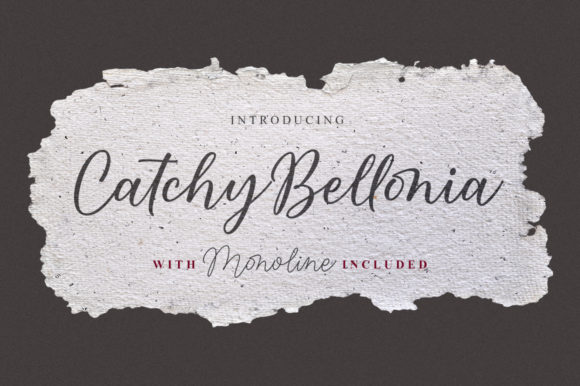
Catchy Bellonia Font: Elevate Your Designs with a Relaxed and Cursive Script Font
In the world of typography, fonts play a crucial role in conveying the tone and personality of a design. When it comes to creating visually appealing projects, selecting the right font is essential. If you’re looking for a font that exudes relaxation and elegance, look no further than Catchy Bellonia. This beautifully crafted font is designed to enhance the beauty of your projects, and in this article, we’ll explore its features and benefits.
What is Catchy Bellonia Font?
Catchy Bellonia is a relaxed and cursive script font that strikes the perfect balance between being too thin and too thick. Its balanced and varied design makes it an excellent choice for a wide range of projects, from creative designs to digital publications. The font’s unique charm lies in its effortless, flowing script that adds a touch of sophistication to any design.
Key Features of Catchy Bellonia Font
- Relaxed and Cursive Design: Catchy Bellonia boasts a beautiful, cursive script design that’s perfect for creating elegant and refined projects.
- Balanced and Varied: The font’s balanced and varied design ensures that it’s not too thin or too thick, making it suitable for a wide range of applications.
- Mono-line Version Included: Catchy Bellonia comes with a mono-line version, providing you with even more flexibility and creative options.
The Benefits of Using Catchy Bellonia Font
Catchy Bellonia offers a range of benefits that make it an excellent addition to your font collection. Here are just a few reasons why you should consider using this beautiful font:
- Elegance and Sophistication: Catchy Bellonia adds a touch of elegance and sophistication to any design, making it perfect for projects that require a refined look.
- Versatility: The font’s balanced and varied design makes it suitable for a wide range of projects, from digital publications to creative designs.
- Unique and Creative: The font’s unique design ensures that your projects stand out from the crowd and grab the attention of your audience.
Who Can Benefit from Using Catchy Bellonia Font?
Catchy Bellonia is an excellent choice for a wide range of designers, artists, and creative professionals. Here are just a few examples of who can benefit from using this beautiful font:
- Graphic Designers: Catchy Bellonia is perfect for graphic designers who want to add a touch of elegance and sophistication to their designs.
- Digital Publishers: The font’s clear and readable design makes it an excellent choice for digital publishers who want to create engaging and refined digital content.
- Artists and Illustrators: Catchy Bellonia’s unique and creative design makes it an excellent choice for artists and illustrators who want to add a touch of personality to their work.
- Branding and Marketing Professionals: The font’s elegant and refined design makes it perfect for branding and marketing professionals who want to create a strong and memorable brand identity.
- Pair it with Other Fonts: Catchy Bellonia pairs well with other fonts, so feel free to experiment with different combinations to create a unique look.
- Use it for Headings and Titles: The font’s elegant and refined design makes it perfect for headings and titles.
- Add it to Your Digital Content: Catchy Bellonia is an excellent choice for digital content, such as blog posts, social media graphics, and email newsletters.
- Experiment with Different Colors: The font’s clear and readable design makes it suitable for use with a wide range of colors and backgrounds.
Catchy Bellonia is a beautiful and elegant font that’s perfect for designers, artists, and creative professionals who want to add a touch of sophistication to their projects. With its relaxed and cursive script design, balanced and varied style, and PUA encoding, this font is an excellent choice for a wide range of applications. Whether you’re creating digital content, designing a brand identity, or working on a creative project, Catchy Bellonia is sure to impress.